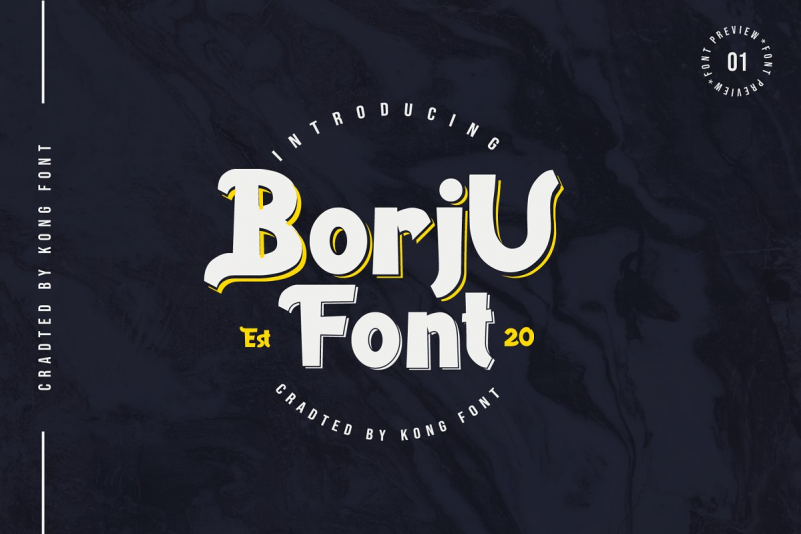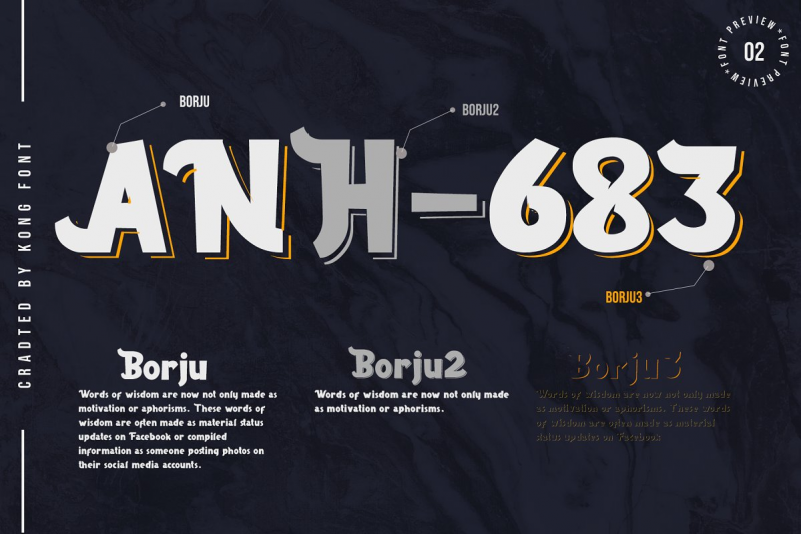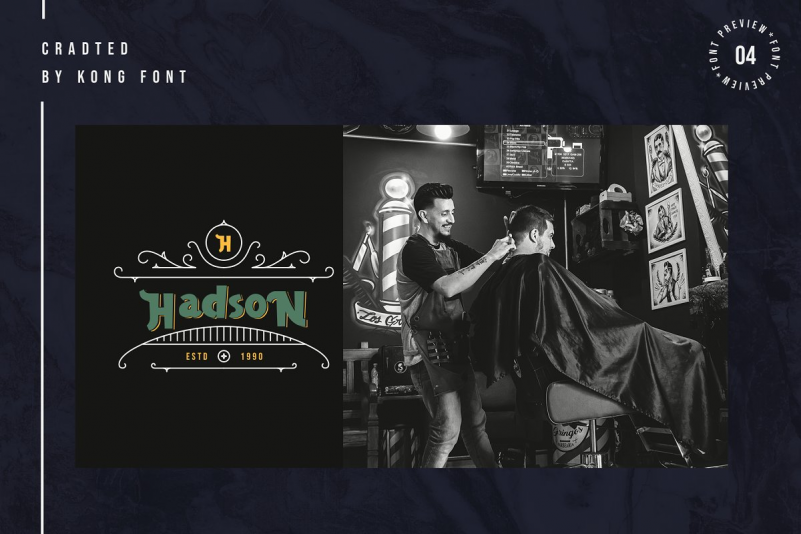
Borju Font
Introducing our New Font, very suitable as to make adorable invitation for wedding, birthday, special day and also perfect for your other projects branding.